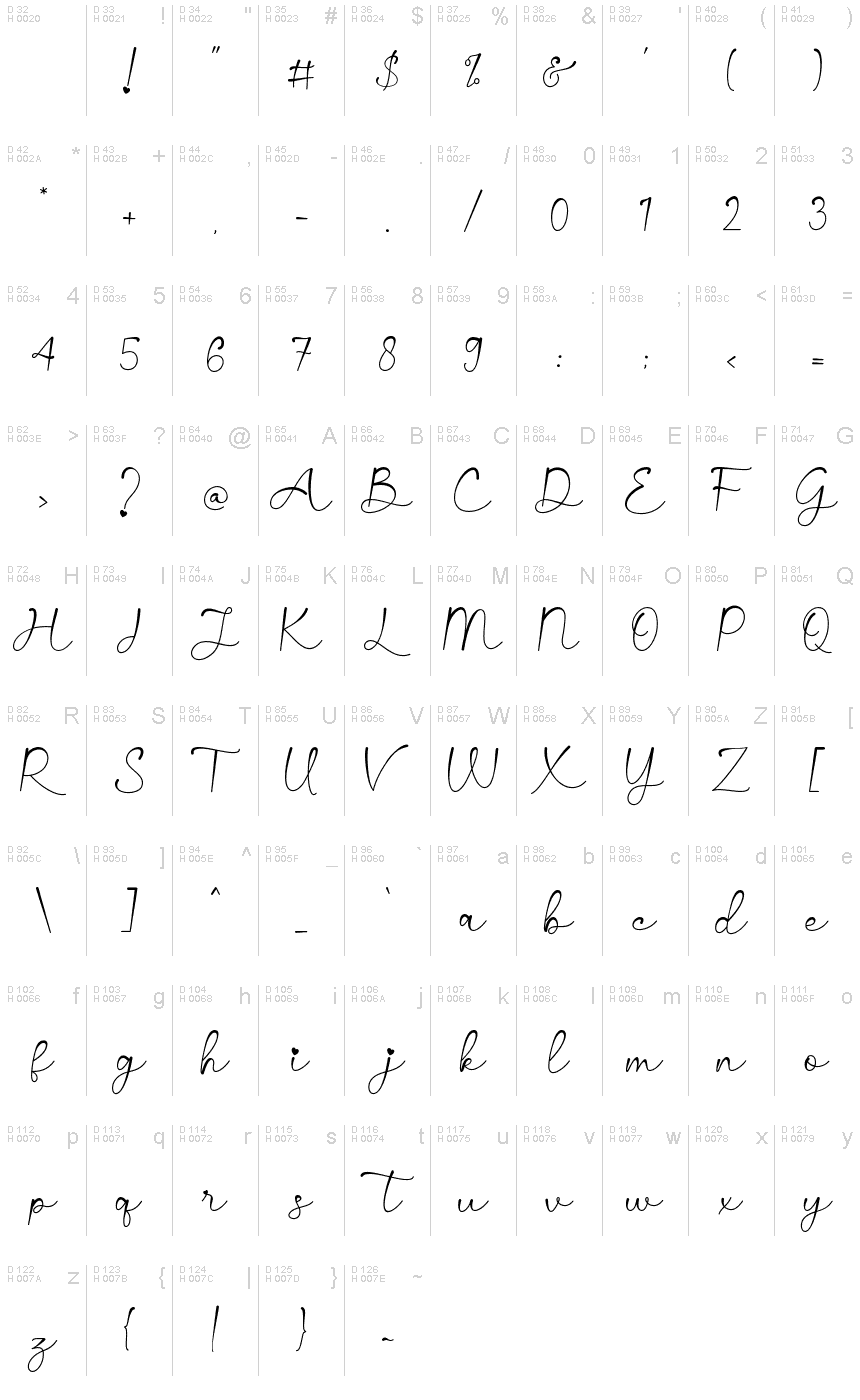
Sweet Signature
Sweet Signature, designed by AEN Creative Studio, encapsulates the charm of personal touch with its handwritten style and semi-light weight. This font evokes an effortless elegance that is both approachable and refined, making it a versatile choice for a host of creative endeavors. Its flowing curves and gentle slants mirror the natural variation found in human script, lending authenticity to any project it graces.
The delicate yet readable characters of Sweet Signature make it ideal for invitations, branding, and advertising campaigns seeking a hint of intimacy. Its aesthetic appeal lies in the balance between casual flair and meticulous craftsmanship—a testament to AEN Creative Studio's attention to detail. Whether applied to print media or digital interfaces, this font stands out for its ability to convey warmth and personality while maintaining high legibility.
Embrace Sweet Signature's potential to infuse your designs with the nuanced character of handcrafted artistry.